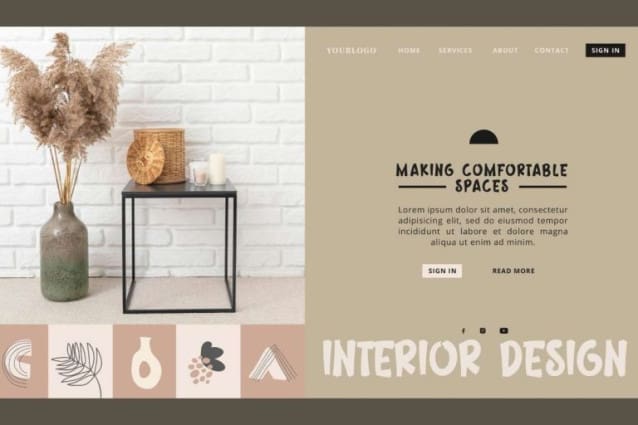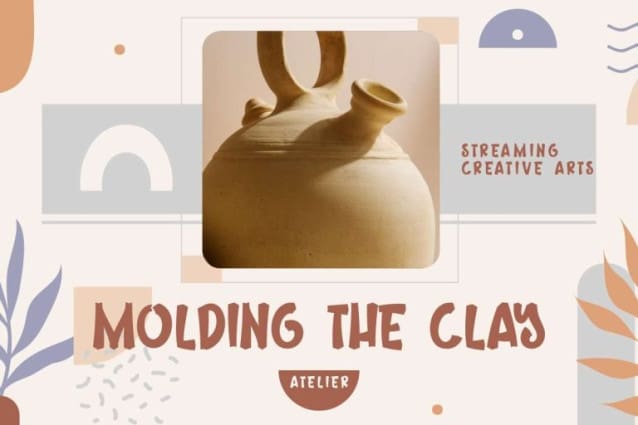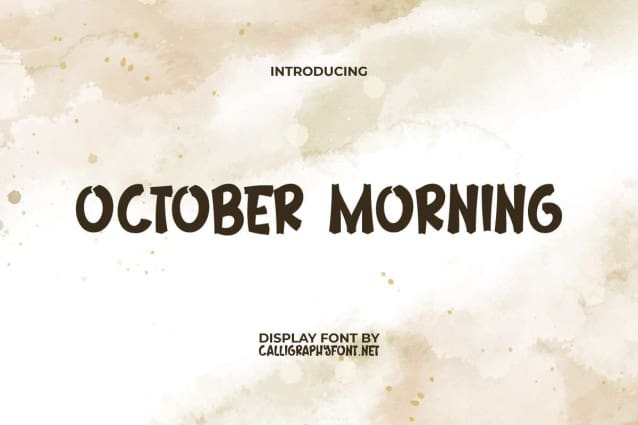
October Morning Font
October Morning Font is a fun vintage display font with a friendly bold marker style that will bring a handcrafted and more dynamic touch to any of your designs, such as billboard, blogs, brand identity, brochure, calendar, cover, header, logo design, postcards, quotes, screen print, social media, stationery, title, website descriptions, or other types of design. It has a unique feel with a retro vibe from the fashion industry.
October Morning Font uses all capital letters with a letter shape that can be considered a little strange but this is where the authentic touch lies. It can be adapted to be involved in any creative industry, such as accessories and home goods, architect, cafe, classic hotels and inns, clay artwork, clothing, interior design, fashion, furniture, graphic design, perfume maker, printing, publishing, retail, woodworker, and much more.